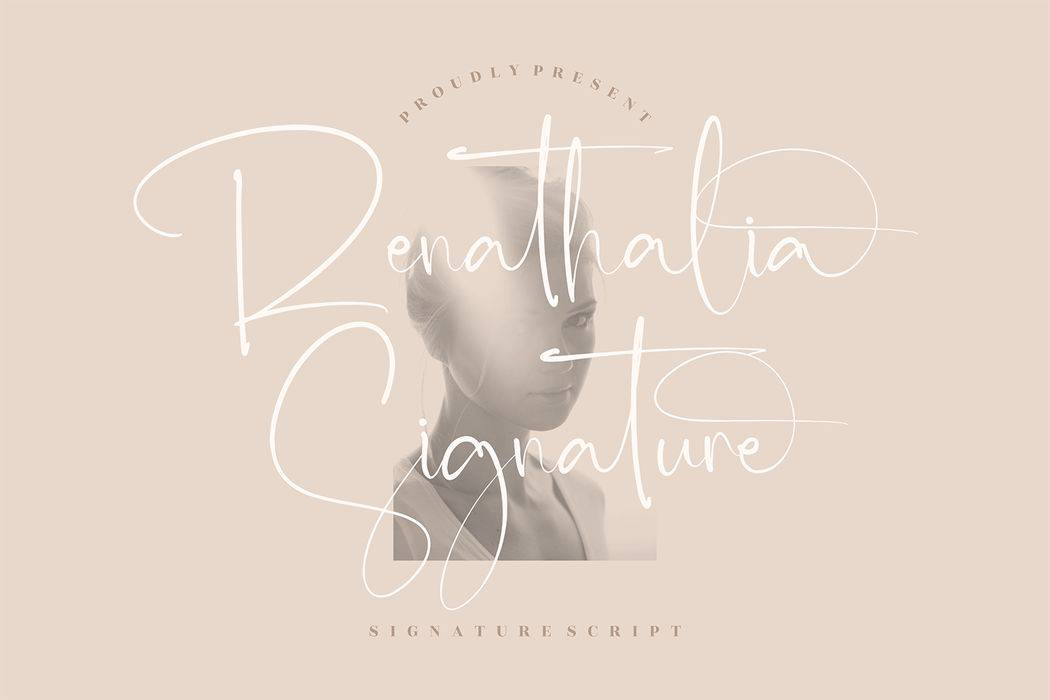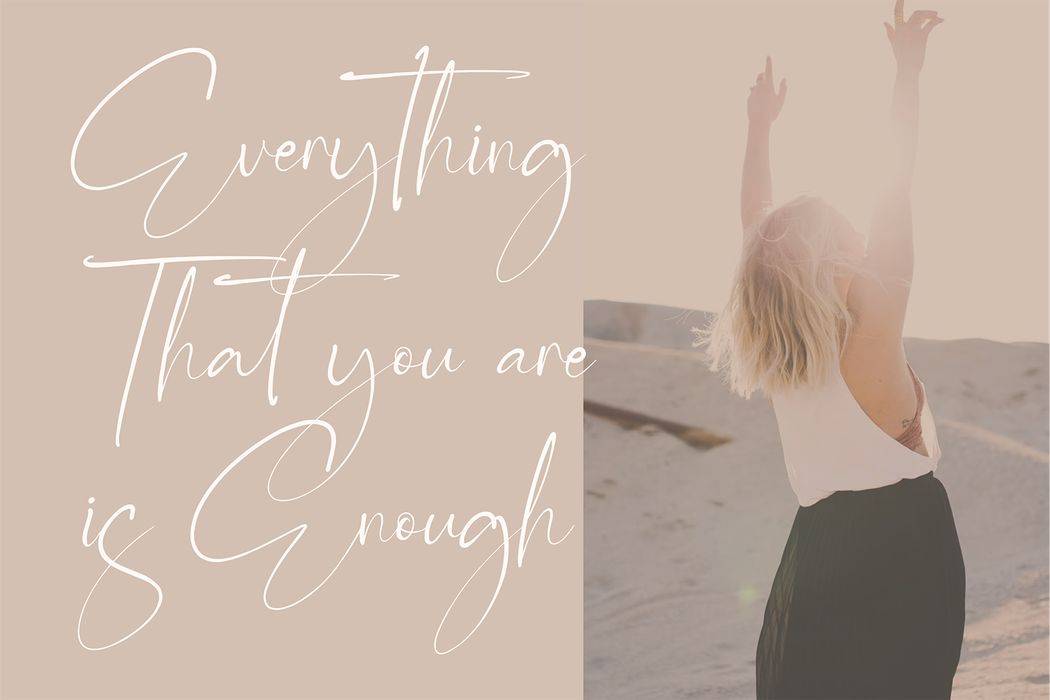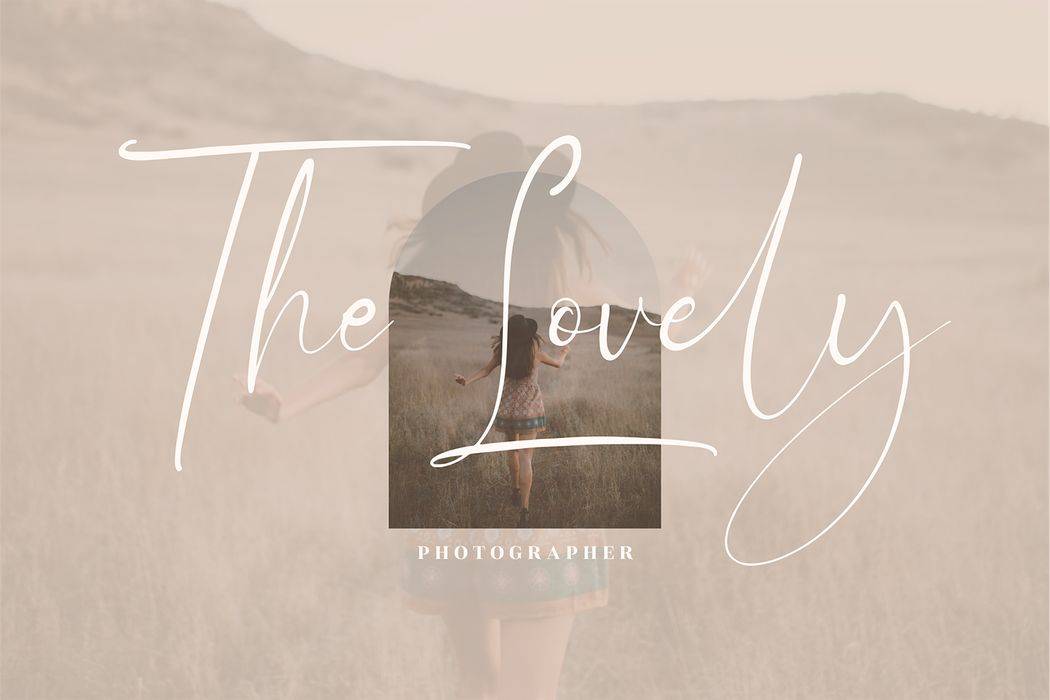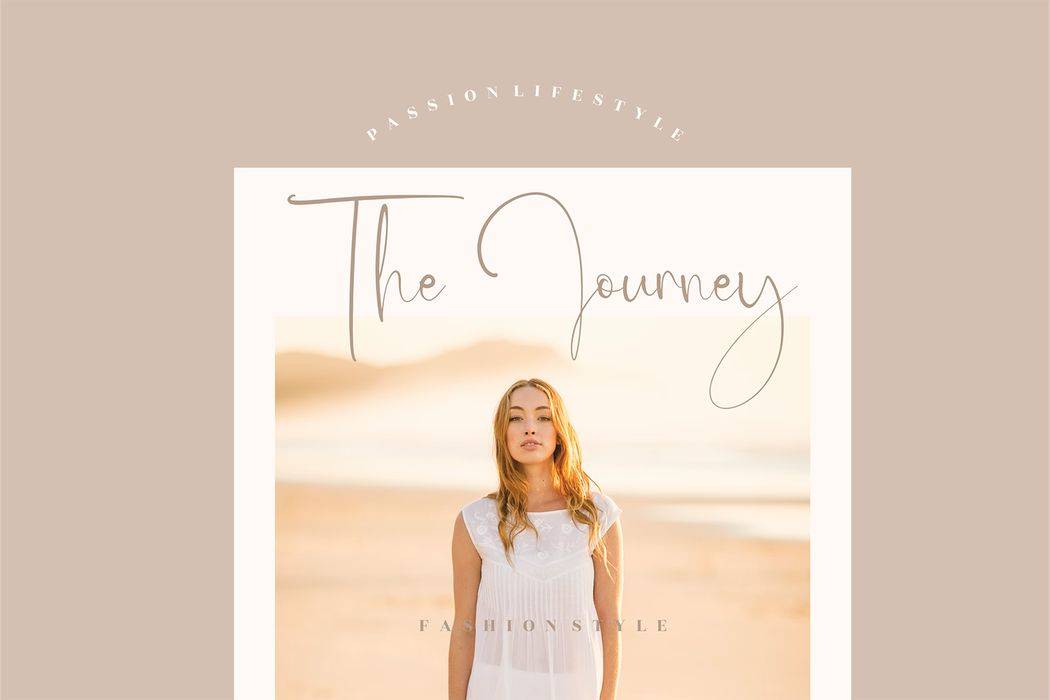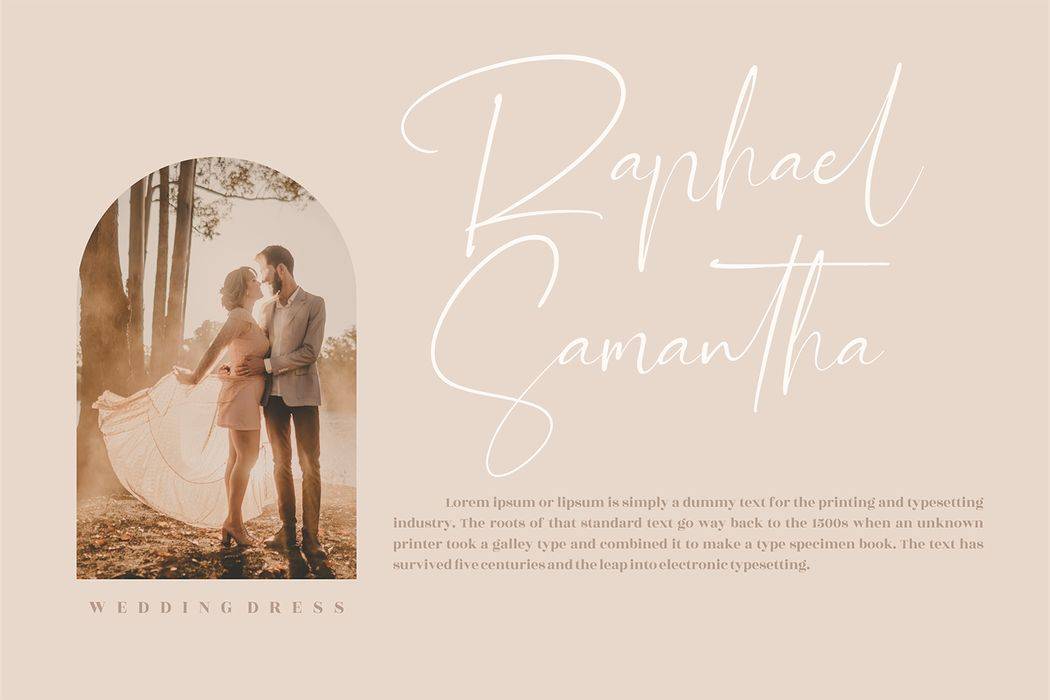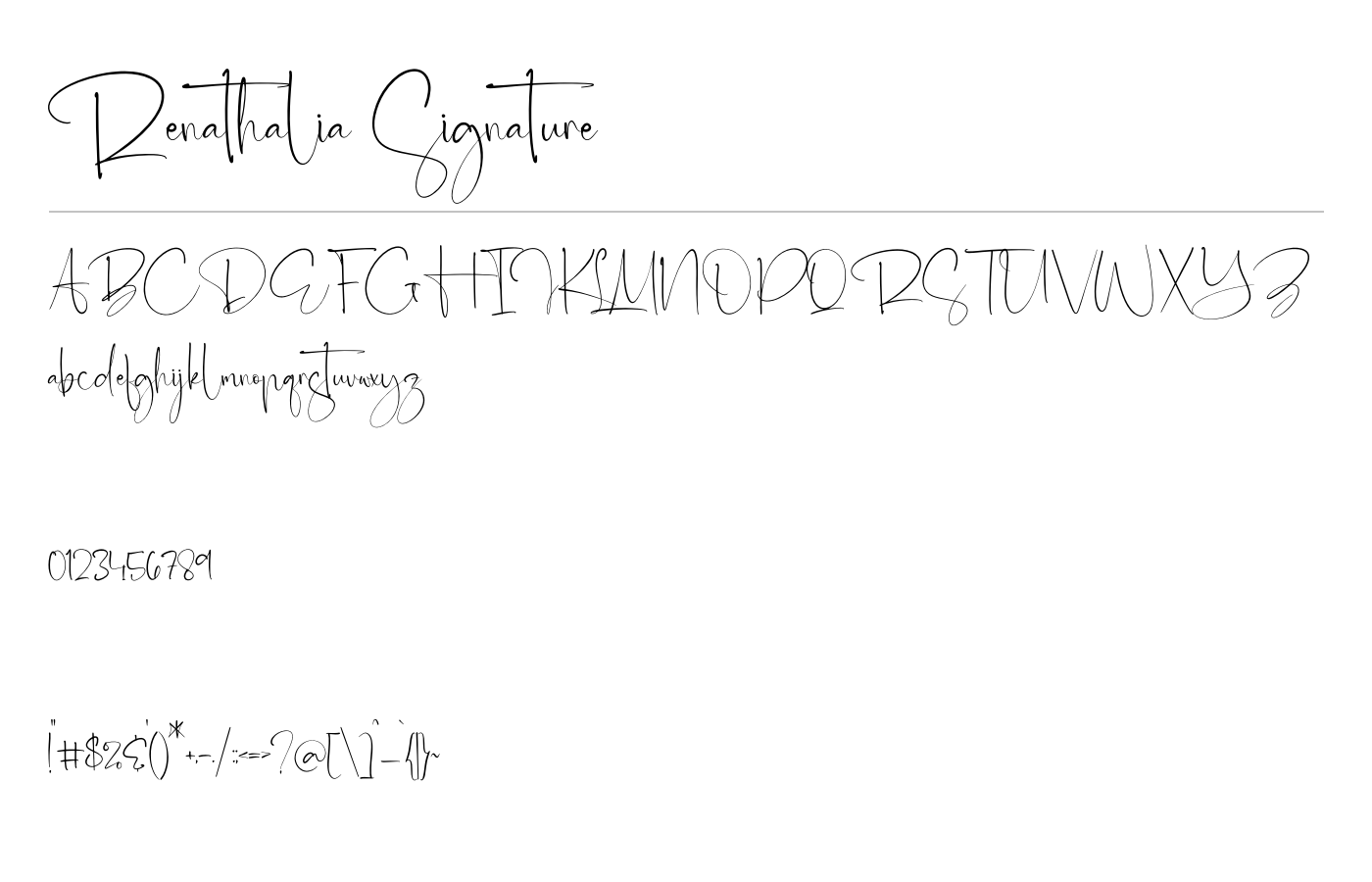
Renathalia Signature is a delicate, handwritten script font characterized by its tall, slender letterforms and elegant, flowing strokes. Its light weight and airy spacing create a refined, personal feel perfect for luxury branding, wedding invitations, and stylish logos. This font's sophisticated yet approachable style adds a graceful touch to projects seeking a modern, signature-inspired look.
Renathalia Signature Font
About Renathalia Signature Font